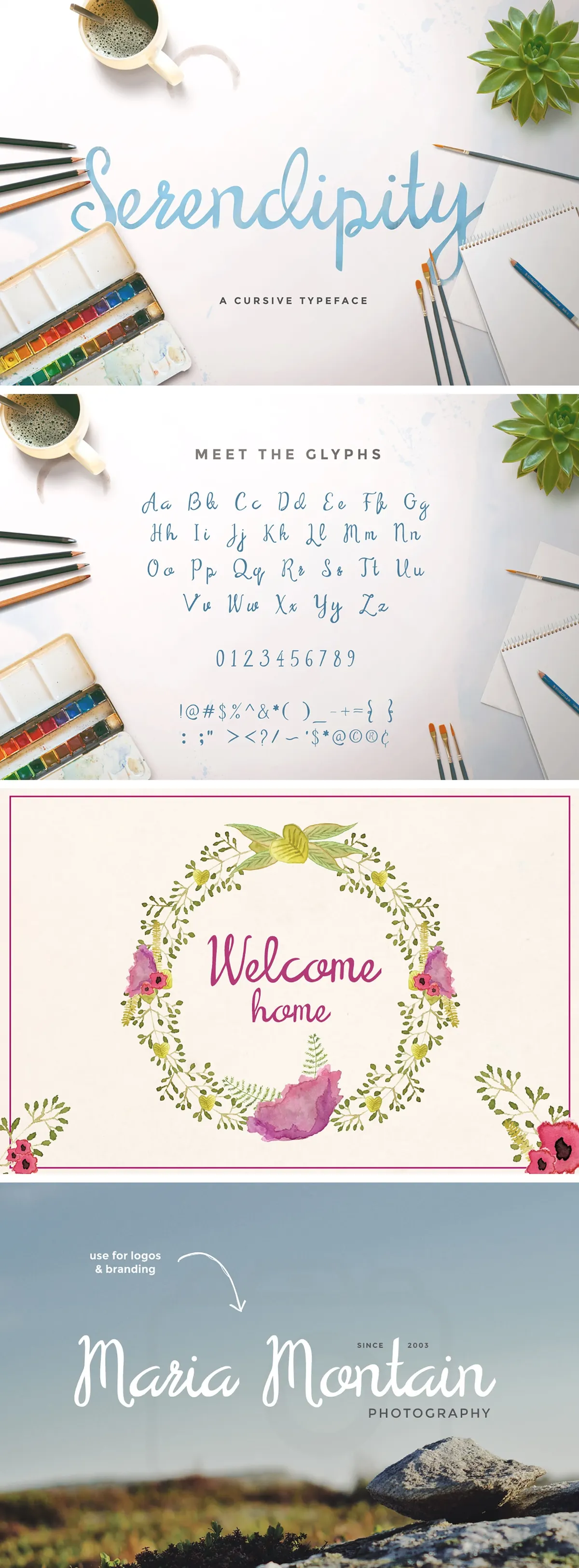
Serendipity Script Free Font
Discover Serendipity Script, a new rising star and a best-selling script font, now available for free, for both personal and commercial use. Download and use it for anything and everything!